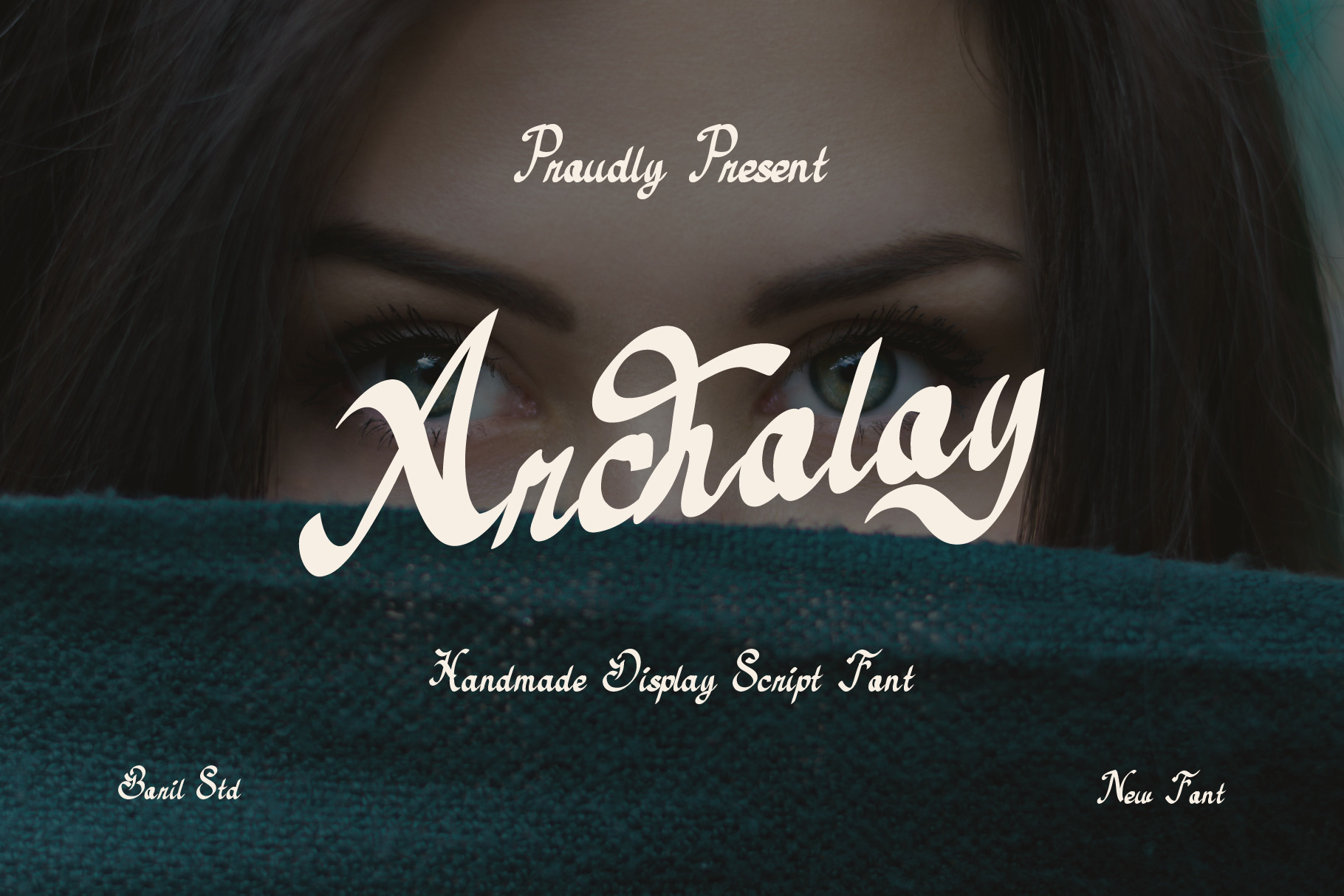
Archoloy - Script Font
The Archoloy font above has a vintage calligraphy theme with a Victorian and classic touch. The combination of italics and ornamentation on the characters creates an elegant and luxurious look.
Shape Characteristics
Style: Decorative serif calligraphy
Letter structure: Italic with curved serifs and ornamental letter tips.
Thickness: Moderate contrast between thick and thin lines, resembling classic calligraphy penmanship.
Details: Numerous swashes, curves, and decorative terminals enhance the artistic feel.
Proportions: Slightly elongated and flowing, creating a graceful visual rhythm.
Impression
Elegant
Luxurious
Romantic
Classic
Classic Vintage
Formal yet Artistic
Sophisticated and Timeless
Suitable Themes
Victorian Vintage
Old European Elegance
Luxury Boutique
Royal Heritage
Romantic Wedding
Classical Literature
Antique Packaging
Luxury Beauty Brand
Premium Restaurant or Winery
Ideal Uses
Premium boutique logo
Wedding invitations
Luxury perfume or cosmetic branding
Wine and artisan product labels
Classic book covers
Certificates and monograms
Luxury product packaging
Fashion editorial design